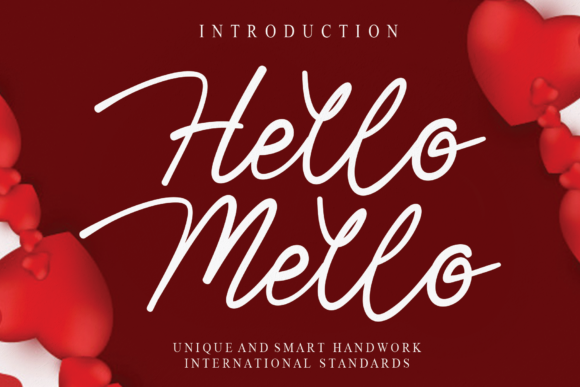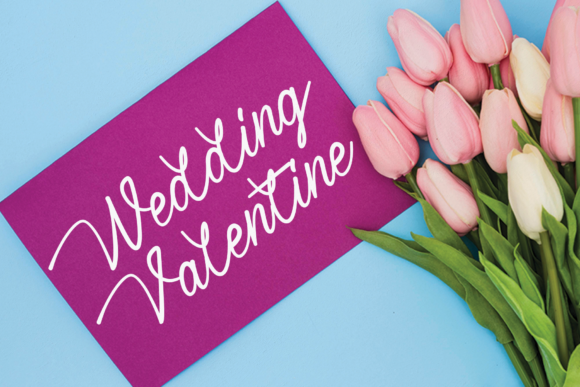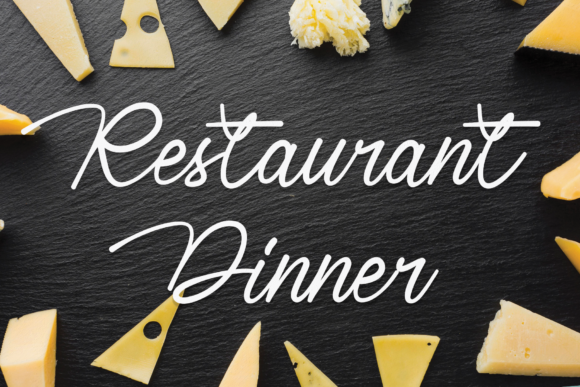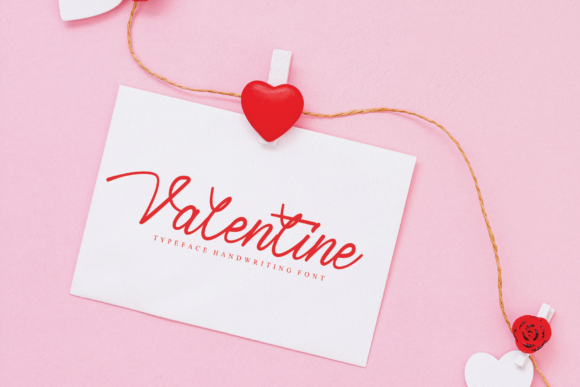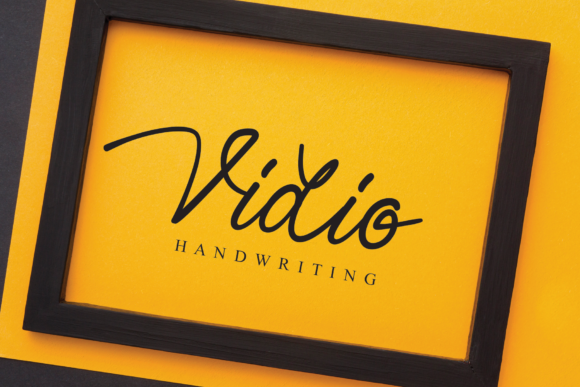
Have you ever been stuck in a creative rut, searching for the perfect font to elevate your design? Maybe you’re working on a project that needs a dash of personality, a sprinkle of charm, and a whole lot of character. That’s where the Hello Mello Font comes in – a delightful, handwritten font that’s guaranteed to bring a smile to your face.
This charming font is designed to add a touch of whimsy and playfulness to your designs, making it a wonderful choice for anyone looking to create something truly special. Whether you’re working on a children’s book, a food blog, or a social media campaign, the Hello Mello Font is sure to bring a sense of joy and wonder to your project. With its sweet and full of life style, this font is a valuable addition to any designer’s toolkit.
- Character Set: The font features a comprehensive character set, including uppercase and lowercase letters, numbers, punctuation marks, and a range of special characters, making it suitable for various languages and applications.
- Unique Characteristics: The font’s distinctive rounded edges and smooth curves give it a friendly and approachable feel, making it ideal for use in children’s books, educational materials, and other applications where a gentle tone is desired.
Hello Mello Font Review
Overall, I think Hello Mello Font is a nice addition to any designer’s toolkit. ✨ The font’s playful and whimsical feel makes it perfect for projects that need a touch of fun and personality. The font’s rounded edges and soft curves create a welcoming and approachable atmosphere, making it ideal for children’s books, educational materials, or even advertisements.
One of the standout features of Hello Mello Font is its versatility. ✨ It comes in a variety of weights, from light to bold, which allows designers to create a range of visual effects and styles. The font also includes a range of ligatures and swashes, adding an extra layer of personality and flair to any design.
- ⚠️ Limited legibility at smaller font sizes – the font’s rounded edges and soft curves can make it difficult to read at smaller sizes.
- ⚠️ Limited support for non-English languages – while the font includes a range of weights and styles, it may not be suitable for languages that require more complex typography.
Overall, I think Hello Mello Font is a great choice for designers looking to add some personality and whimsy to their projects. While it may have some limitations, its versatility and range of styles make it a valuable addition to any designer’s toolkit.
- Use it for playful and whimsical designs.
- Pair it with bold and colorful graphics for a fun and lively look.
- Experiment with different font sizes and colors to add visual interest.